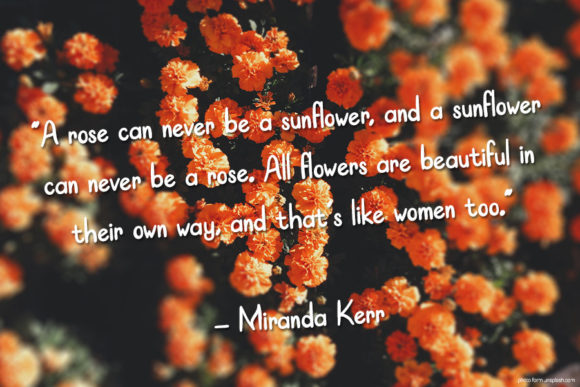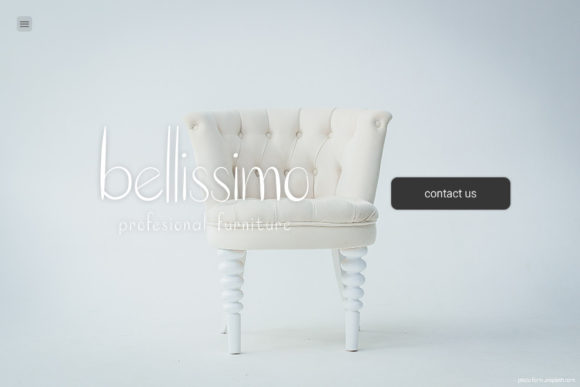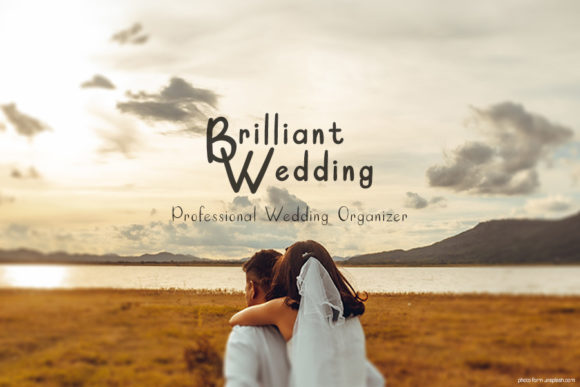
Introduction to Dreamer Font
Dreamer is a beautiful and refined script font.
It has a classy, elegant and modern look that can be used for logos, branding, invitations, stationery, wedding designs, social media posts, and much more .
Dreamer Font offers exceptional quality and versatility, making it a valuable addition to your design toolkit. Whether you’re creating for personal projects or commercial use, Dreamer Font delivers professional results.